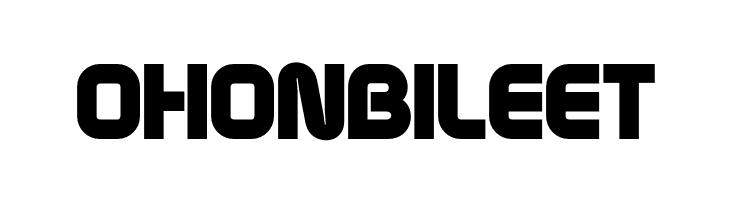
Age Font
Age Description
This font exhibits a bold and modern aesthetic with a geometric structure. The characters are blocky and robust, featuring rounded edges that soften the overall appearance. The uppercase and lowercase letters maintain a consistent weight, contributing to a uniform look. The numerals are equally bold, ensuring readability and impact. Special characters are designed to match the boldness and style of the alphanumeric characters, making them suitable for various design contexts. The font's strong presence makes it ideal for attention-grabbing headlines and logos.
A bold, geometric font with rounded edges and a modern style from Round fonts.
- Proposed Projects: Ideal for branding, headlines, posters, and digital media where a strong, modern presence is desired.